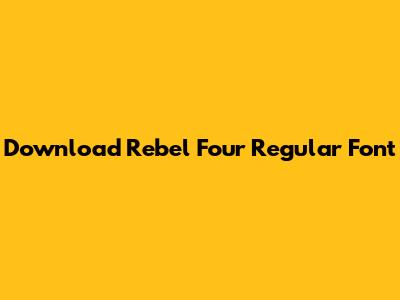
Download Rebel Four Regular Font
Hey guys, let's talk about fonts! Specifically, we're diving into the awesome Rebel Four Regular font. If you're on the hunt for a typeface that screams a certain kind of vibe, you've come to the right place. Downloading this font is pretty straightforward, but understanding why you might want it and how to best use it is where the real magic happens. We'll cover all the ins and outs, making sure you can get your hands on Rebel Four Regular and start creating some seriously cool stuff. Whether you're a graphic designer, a hobbyist, or just someone who appreciates good typography, this font has got potential. So, buckle up, and let's get this font party started!
Why Choose Rebel Four Regular?
So, what makes the Rebel Four Regular font stand out from the crowd, you ask? Well, it’s all about its unique personality. This isn't just another generic typeface; it's got character, a certain je ne sais quoi that can elevate your designs from ordinary to extraordinary. Think bold, think edgy, think... well, rebellious! The design often features a distinctive style, perhaps with sharp edges, unconventional curves, or a distressed look that hints at something a bit rough around the edges. This makes it perfect for projects that need to make a statement. We're talking about posters for concerts, album art, edgy branding, or even just a cool title for your blog post. The regular weight usually offers a good balance, making it legible enough for headlines and short bursts of text, while still packing that visual punch. When you download Rebel Four Regular, you're not just getting a font file; you're acquiring a tool to inject attitude and distinctiveness into your creative work. It’s the kind of font that catches the eye and makes people lean in, wondering what else you've got up your sleeve. Its versatility, while leaning towards the bolder side, can also be surprisingly adaptable if you play around with sizing and context. So, if you're aiming for a look that's anything but boring, Rebel Four Regular is definitely one to consider adding to your digital toolkit. Remember, the right font can be the difference between a design that blends in and one that truly stands out. This font is a prime example of how typography can convey a message and set a mood all on its own. It's about making a deliberate choice that reflects the spirit of your project.
Creative Applications for Rebel Four Regular
Now that you've got the Rebel Four Regular font downloaded and installed, let's brainstorm some cool ways you can use it, guys! This font isn't just for show; it's a powerhouse for making a statement. Graphic design projects are an obvious playground. Need to design a flyer for a rock concert, a metal band's album cover, or a poster for a gritty film? Rebel Four Regular is your go-to. Its inherent edginess and boldness can instantly communicate the genre and mood of the event or media. Imagine bold, distressed headlines using this font – pure impact! For branding and identity, Rebel Four Regular can be a fantastic choice for businesses that want to project an image of strength, rebellion, or unconventionality. Think craft breweries, skate shops, or streetwear brands. A well-placed logo or tagline in this font can set a brand apart and attract a specific, like-minded audience. It tells a story before anyone even reads the product description. Think about social media graphics. Need to create eye-catching Instagram posts or Pinterest pins? Use Rebel Four Regular for your text overlays on striking images. It's perfect for quotes that need to pack a punch or announcements that demand attention. Don't underestimate its power to grab scrolling eyes! Web design can also benefit. While you might want to stick to headings and call-to-action buttons rather than body text, Rebel Four Regular can add a ton of personality to a website. A unique heading for a blog post, a bold statement on a landing page, or even the title of a section can make a site feel more dynamic and memorable. Personal projects are fair game too! Creating custom t-shirts, designing invitations for a themed party, or even personalizing a journal cover? Rebel Four Regular can add that special, unique touch that makes your creation truly yours. The key is to understand its strengths. It excels where you need attitude, impact, and memorability. Use it strategically, and pair it with simpler fonts when necessary, and you'll find it's an incredibly versatile tool in your creative arsenal. So get out there and experiment – the possibilities are as vast as your imagination!
Tips for Pairing Rebel Four Regular
Alright, let's say you've nailed the download and installation, and you're ready to start designing with Rebel Four Regular font. One of the smartest things you can do to make your design truly shine is to pair it effectively with other fonts. Rebel Four Regular, with its strong personality, can sometimes dominate a design if not balanced correctly. So, how do you do it? The golden rule is contrast. You want to pair a bold, distinctive font like Rebel Four Regular with something that's clean, simple, and highly legible. Think sans-serif fonts with clean lines, like Open Sans, Lato, or Montserrat, for your body text. These fonts provide a neutral background that allows Rebel Four Four Regular to take center stage for headlines or key phrases without competing. Another great pairing option is using a classic serif font for contrast. A font like Times New Roman (though perhaps a bit dated for some contexts) or a more modern serif like Georgia or Merriweather can offer a sophisticated counterpoint to Rebel Four's boldness. The contrast in style – sans-serif vs. serif, bold vs. simple – creates visual interest and hierarchy. When using Rebel Four Regular for headlines, consider making the body text significantly smaller and in a much simpler font. This guides the reader's eye and ensures readability. Experiment with weight and style. If Rebel Four Regular has different weights (light, bold, etc.), use them strategically. You might use a lighter weight for a sub-headline and the regular weight for a main title. For the body text, always opt for a regular or book weight for maximum legibility. Consider the mood. Rebel Four Regular often evokes a sense of energy, rebellion, or modernity. Pair it with fonts that complement this mood, or deliberately contrast it for a unique effect. For example, pairing it with a very elegant, script-like font might create an unexpected but intriguing juxtaposition. Don't overdo it. Usually, sticking to two or three fonts in a design is the maximum you need. Let Rebel Four Regular be the star for your display text, and choose one dependable font for all your other text needs. Mastering font pairing takes practice, but by focusing on contrast and legibility, you'll be well on your way to creating professional-looking designs with Rebel Four Regular. It’s all about creating a harmonious yet dynamic visual rhythm!
Conclusion: Unleash Your Creativity!
So there you have it, guys! We've explored the exciting world of the Rebel Four Regular font, from understanding its unique appeal to where you can download it, how to install it, and crucially, how to use it effectively in your creative projects. Remember, downloading Rebel Four Regular is just the first step. The real fun begins when you start integrating it into your designs. Whether you're crafting a killer poster, designing a unique brand identity, or just adding some flair to your social media posts, this font offers a distinct edge that can make your work pop. Always keep licensing in mind – it's essential for responsible and professional design work. And don't forget the power of good font pairing; contrasting Rebel Four Regular with simpler, more legible fonts will ensure your message is not only seen but also clearly understood. This font is a tool, and like any good tool, it's most effective when you know how and when to use it. So go ahead, experiment, take risks, and let Rebel Four Regular help you express that unique voice you have. Happy designing, and may your creations be ever bold and original!